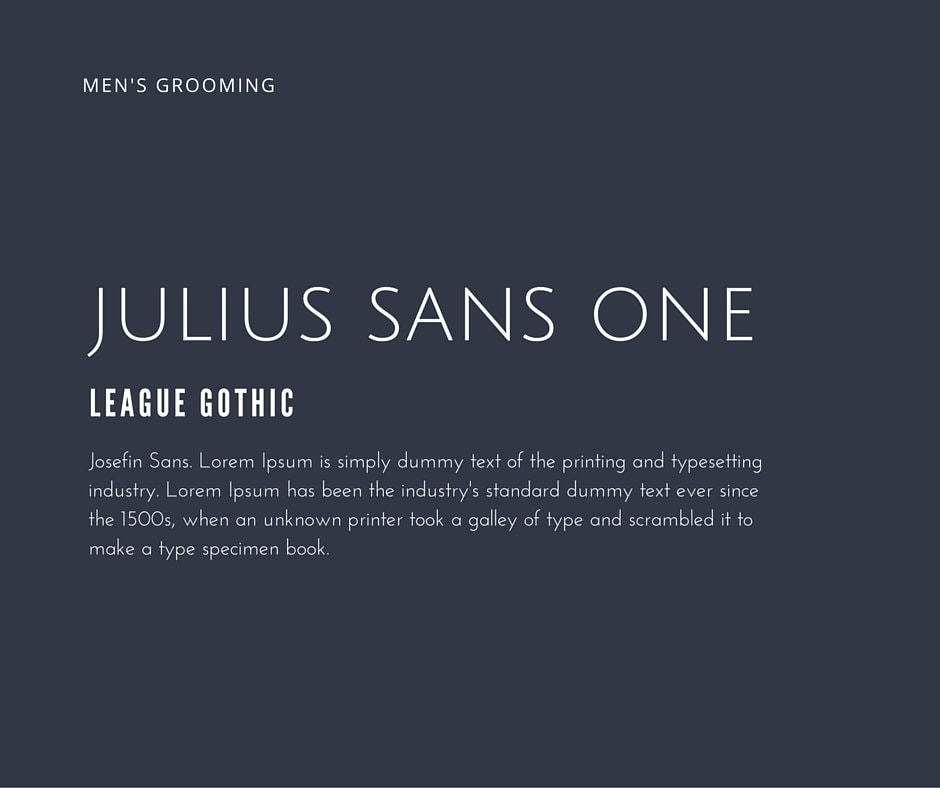
List Of Masculine Fonts Canva References
List Of Masculine Fonts Canva References. Web based on geometric lines and forms, modern fonts are clean, clear, and easy to read; Every font is free to download!
Web Creatype Studio’s Gaston & Jacklyn Canva Font Typeface Incorporates Geometric Elements With A Vintage Style.
Plus with a creative twist or dash of detail they have a cool, contemporary vibe. Web font get also stocks a vast library of manly fonts, ranging from geneva to orbit and more others. Several alternate glyphs for many letters, multilingual support,.
It is termed as a top masculine font generator where even. Click to find the best 538 free fonts in the canva style. Every font is free to download!
Web Here Are Examples Of Templates Using The League Spartan Font:
Web Based On Geometric Lines And Forms, Modern Fonts Are Clean, Clear, And Easy To Read;
Click to find the best 201 free fonts in the masculine style. Another transitional serif font that’s best used on literary books is unna. Web the fonts published on fontshome.net are property of their authors and are 99% freeware fonts or public domain.